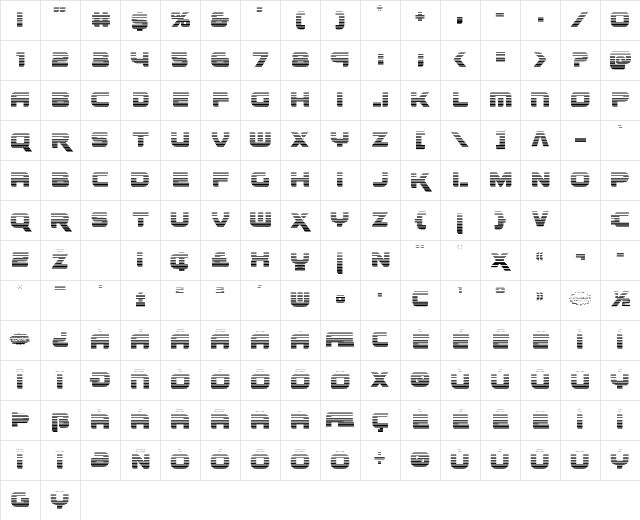
Renegado Gradient Regular
Renegado Gradient Family
Design Context for Renegado Gradient
Renegado Gradient is a composed and adaptable typeface that performs quietly and consistently across a wide range of design contexts.